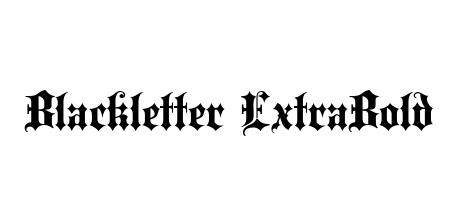
Blackletter
By Dieter Steffmann
Blackletter ExtraBold is a bold, gothic typeface. Its sharp serifs and dramatic strokes evoke a medieval feel. The letters are tightly packed, creating a dense, weighty appearance. It's a font that commands attention, suggesting power, history, and perhaps even a touch of mystery. Its dark, strong style makes it visually striking.